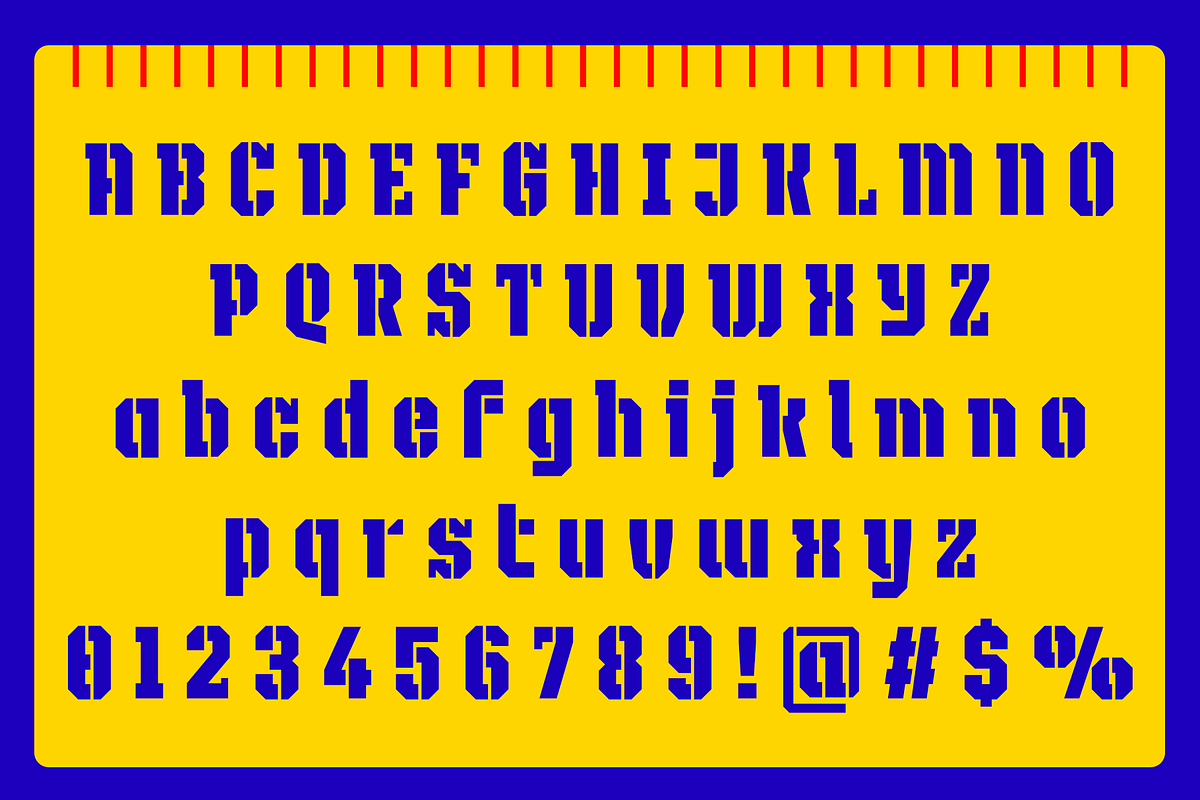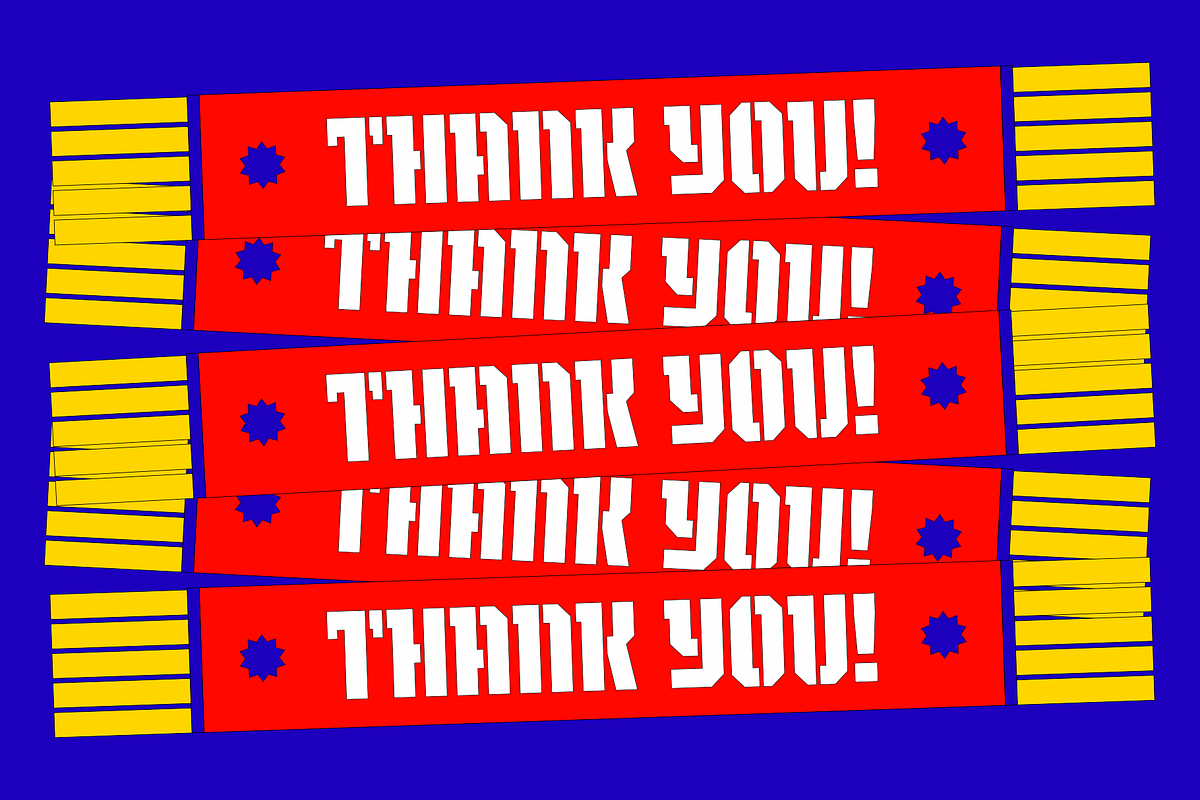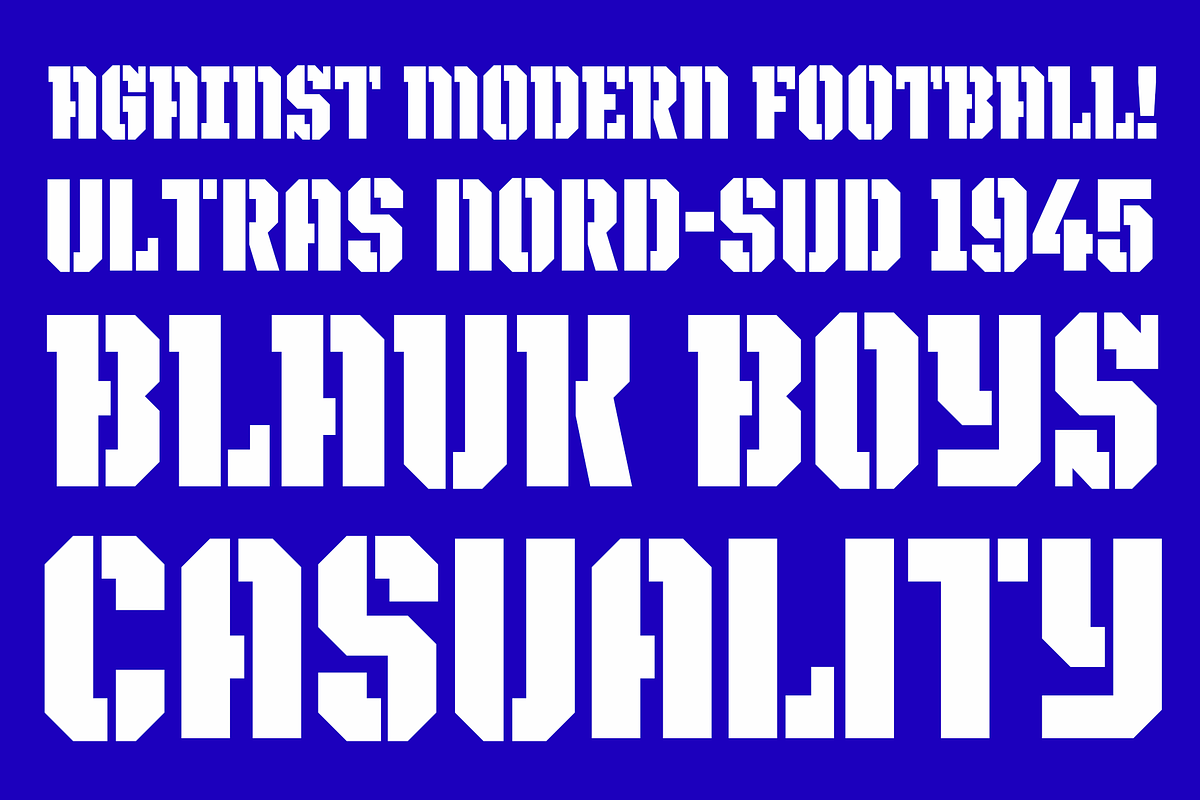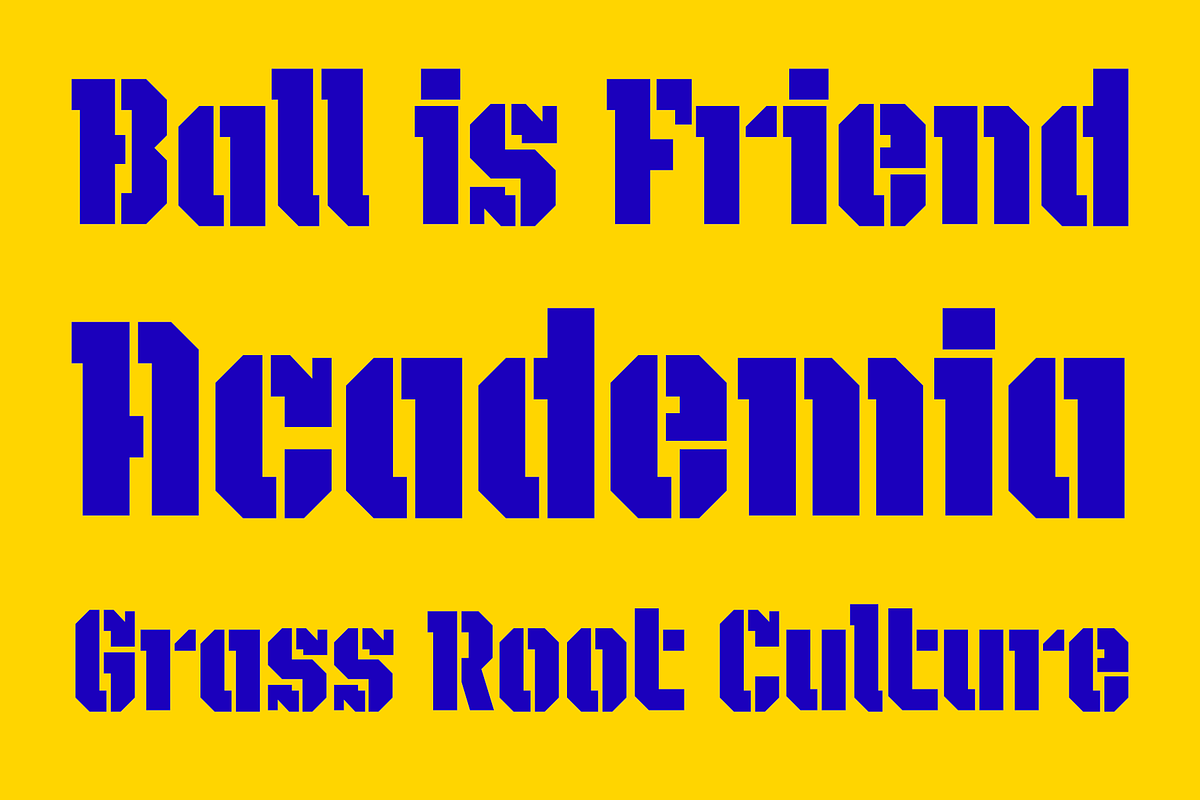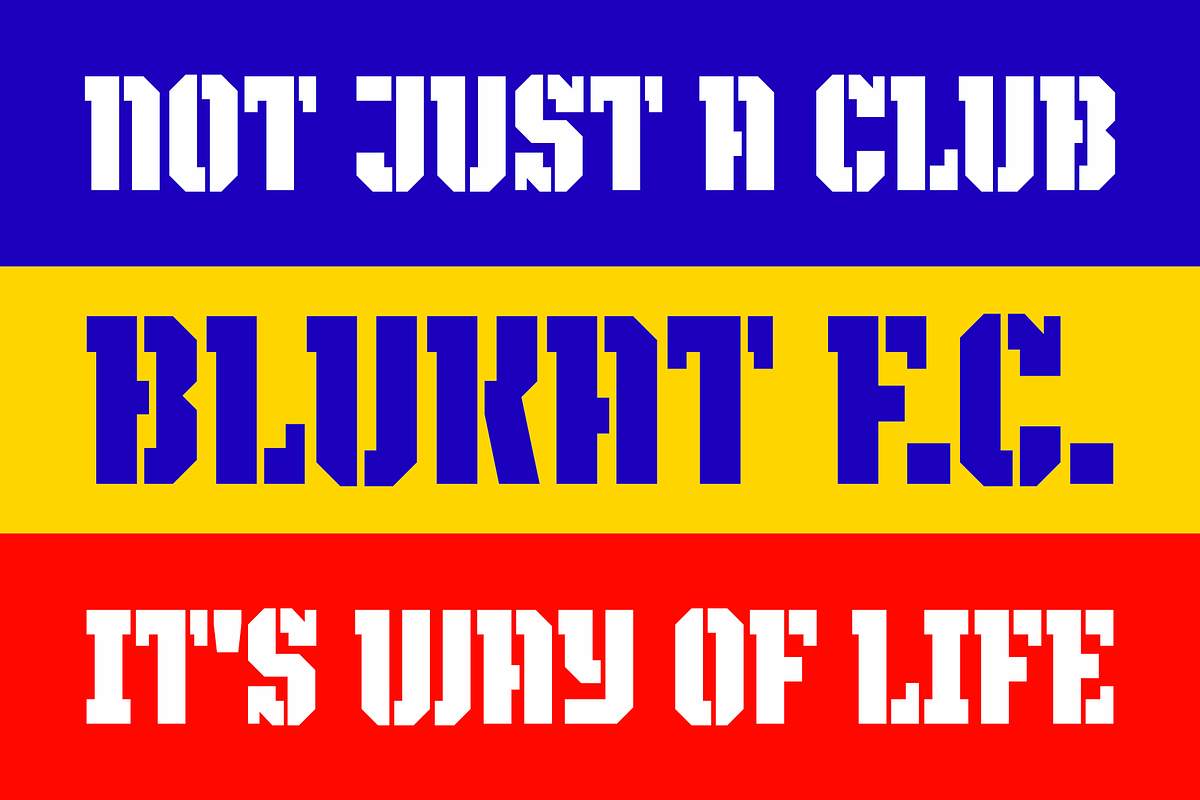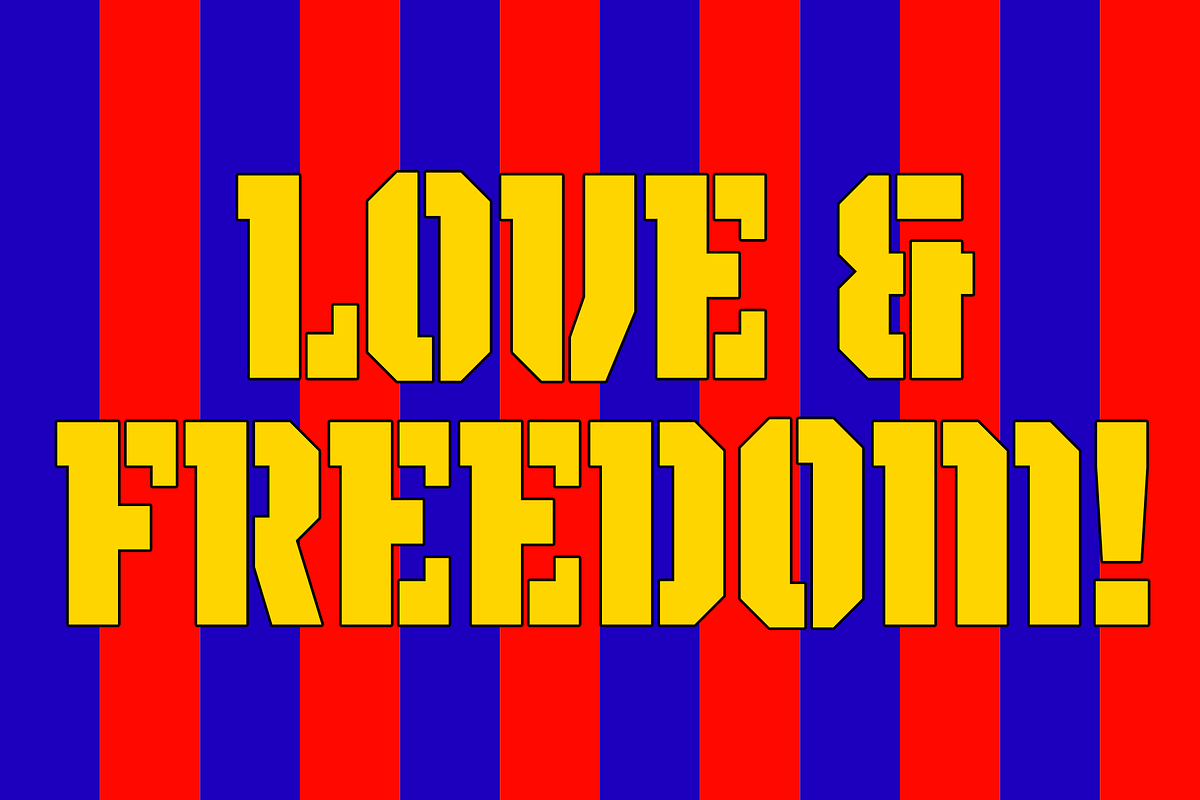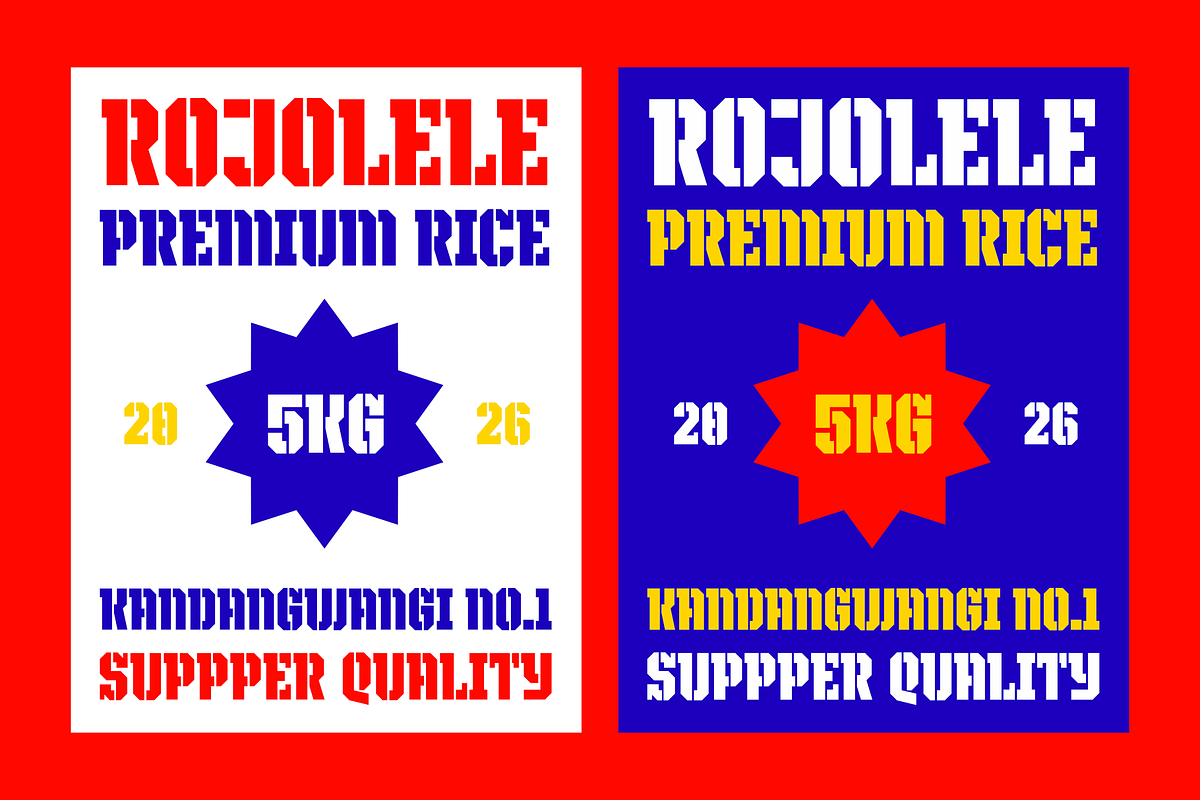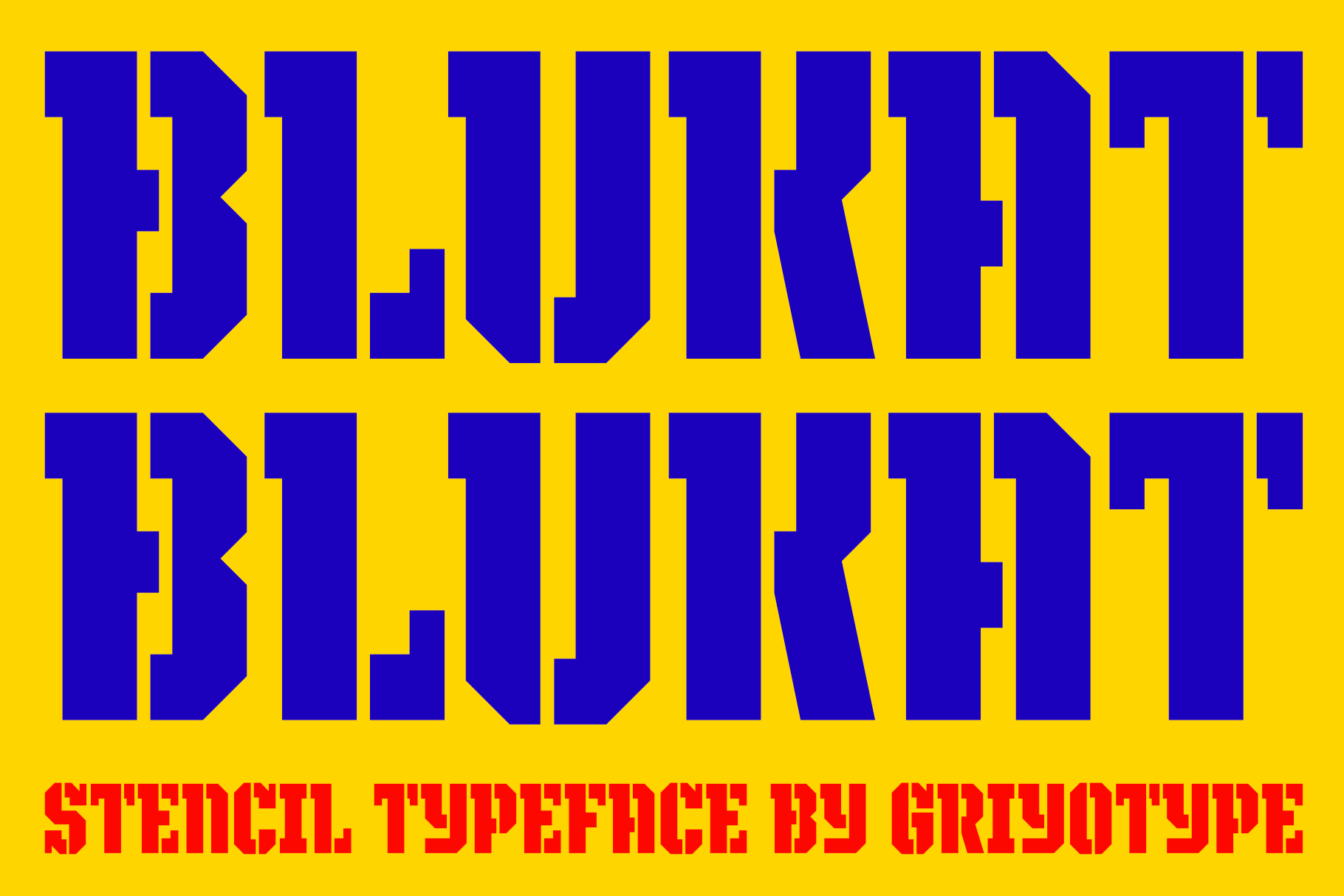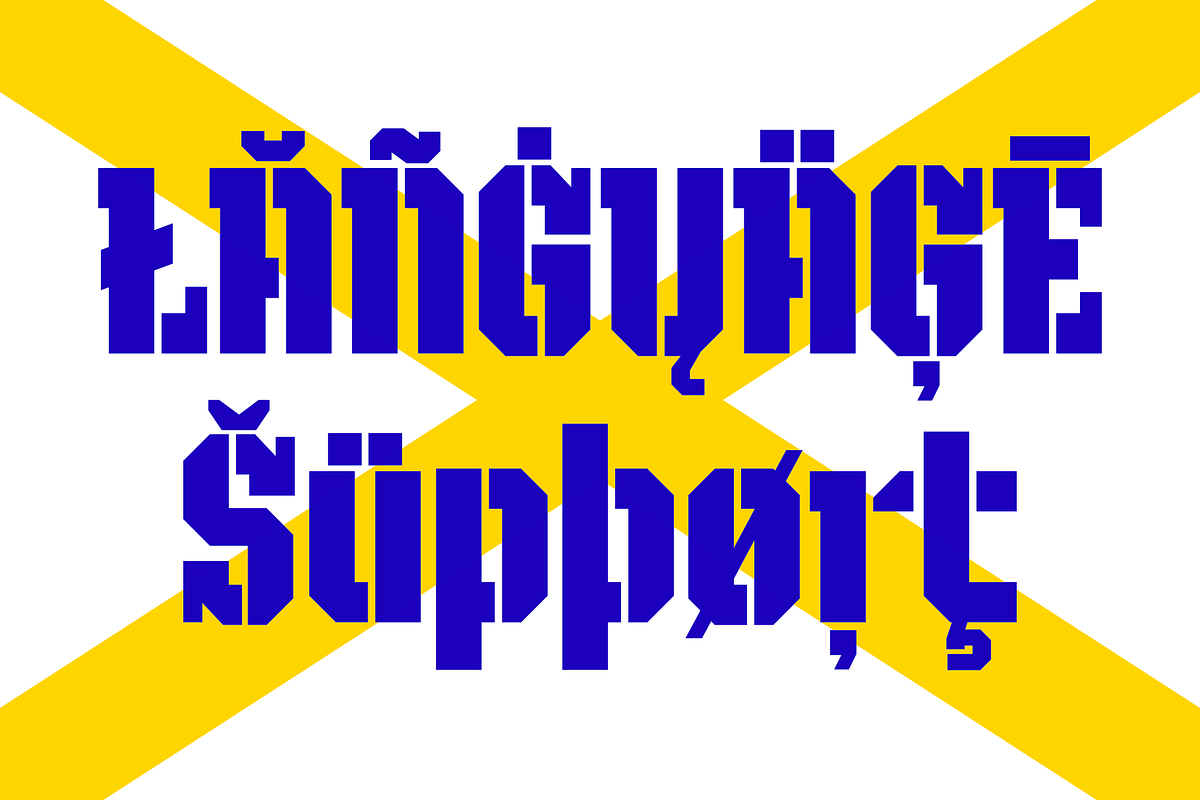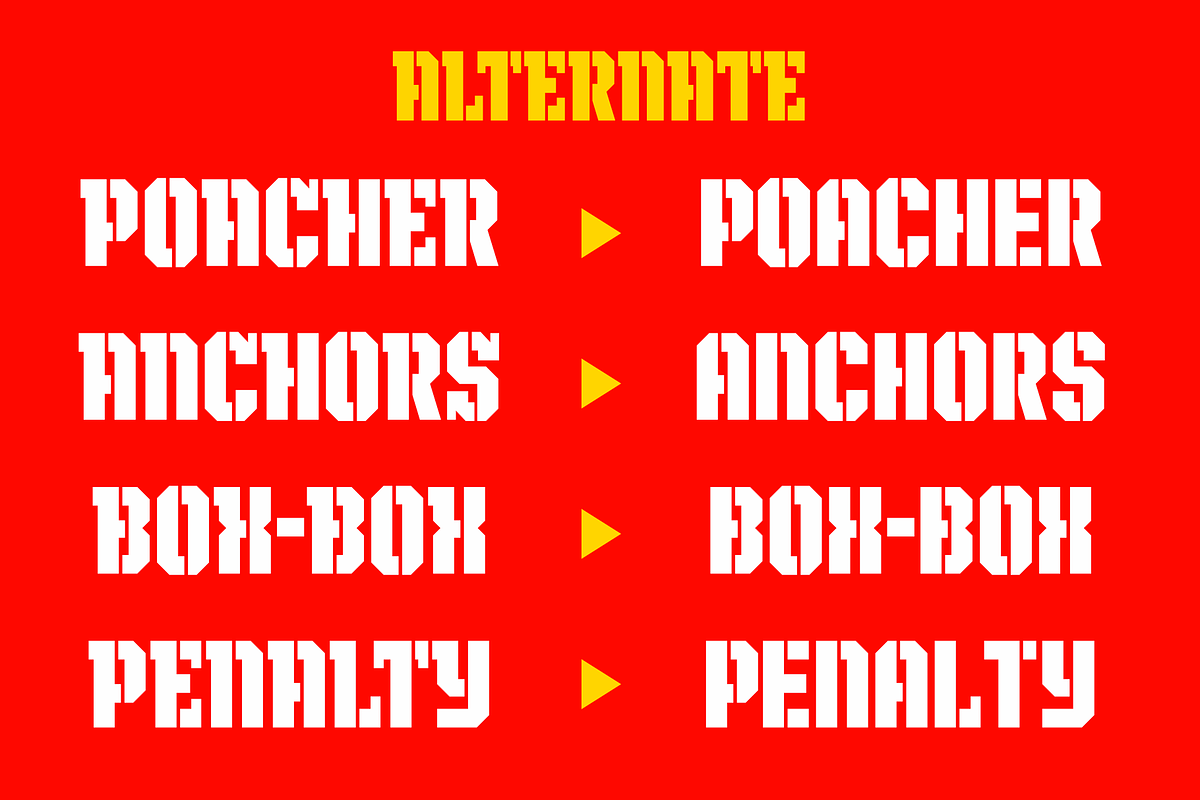
Blukat – Stencil Display Font
Blukat is a bold stencil display font designed with a strong athletic, collegiate, and streetwear-inspired character.
Featuring heavy letterforms, distinctive stencil cuts, and sharp graphic details, Blukat delivers a powerful visual impact for headlines, logos, posters, apparel, and branding.
Its bold construction makes Blukat especially suitable for sports and football graphics, vintage athletic designs, team identities, merchandise, and contemporary streetwear projects.
Perfect for
Sports & football graphics
Athletic branding
Team logos
Collegiate designs
Streetwear & apparel
Vintage sports posters
Event posters
Stickers & patches
Logos & badges
Album artwork
Headlines & titles
Bold stencil display style
Distinctive stencil cuts
Uppercase & lowercase characters
Numerals & punctuation
OpenType features
Strong display proportions
Blukat combines bold stencil typography with sports, collegiate, and streetwear aesthetics, making it a versatile display typeface for high-impact graphic design.